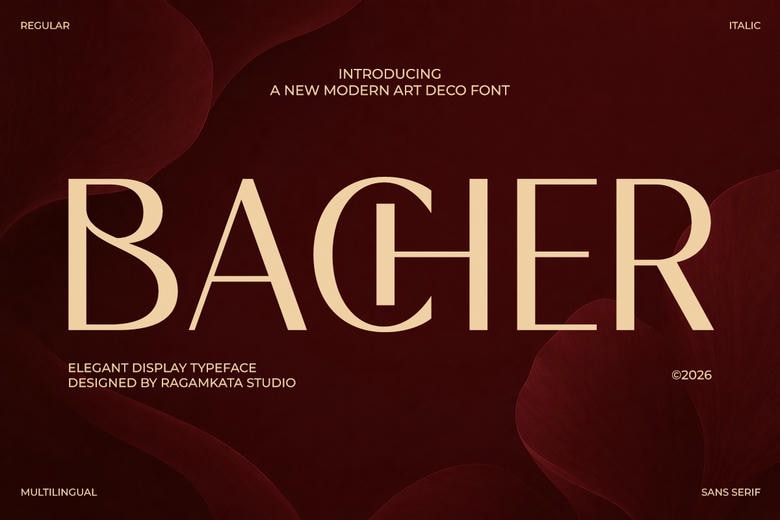
Bacher Font
Bacher is a modern Art Deco typeface that blends classic elegance with a clean, minimal style. Drawing from the glamour of the Art Deco era, this display font features geometric shapes, smooth curves, and bold contrasts to help it stand out. Its design gives every headline a premium and memorable look.
Bacher works well for modern branding. It suits luxury logos, fashion magazines, beauty packaging, hotel brands, jewelry ads, wedding invitations, magazine headlines, and stylish social media posts. Bacher’s clean lines and balanced shapes make it easy to read. Its artistic style is immediately noticeable.